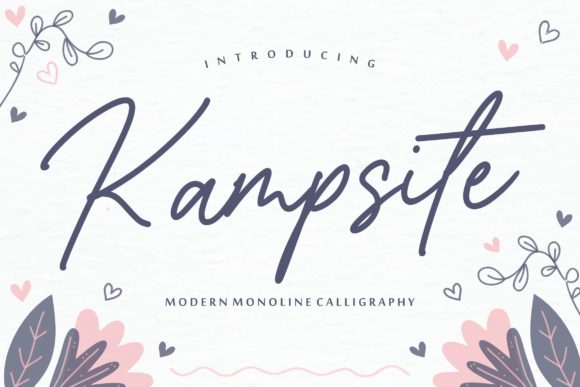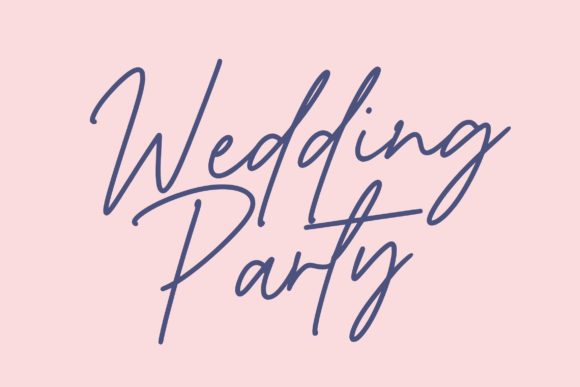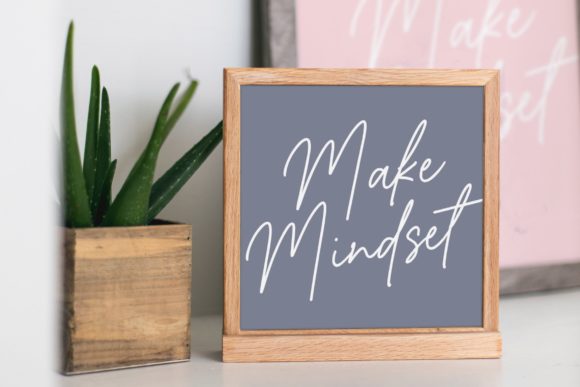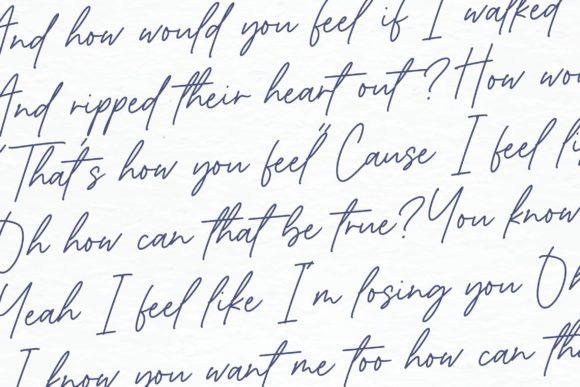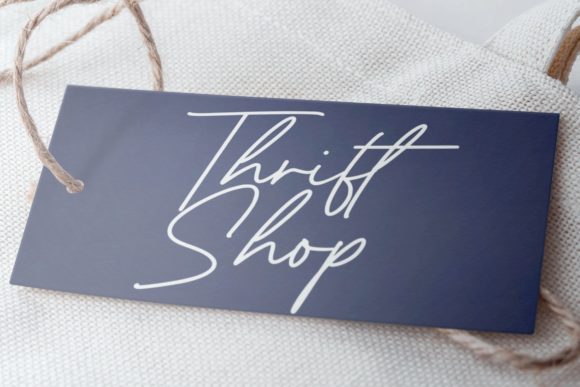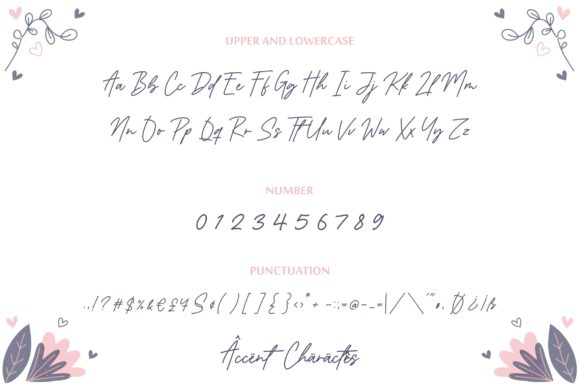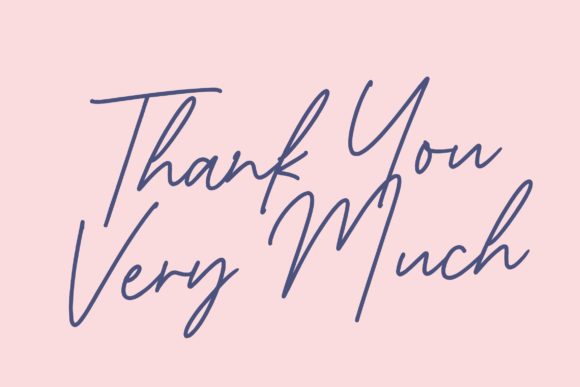
Kampsite Font
About Kampsite Font
Kampsite is a sophisticated and modern script font. It will elevate a wide range of design projects to the highest level, be it branding, headings, wedding designs, invitations, signatures, logos, labels, and much more!